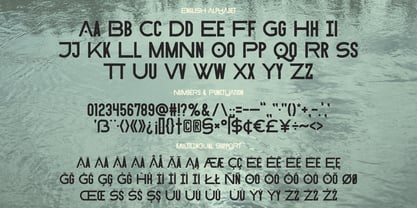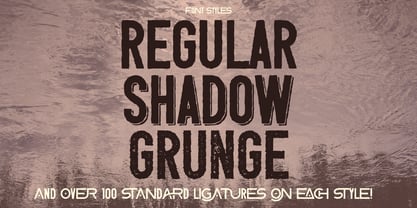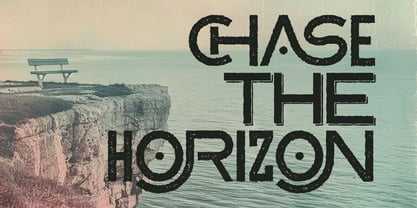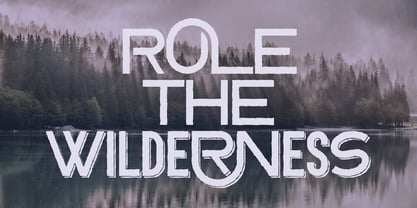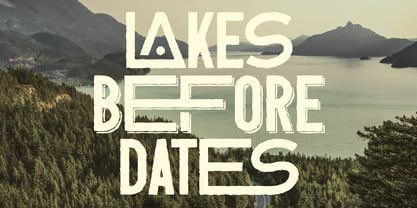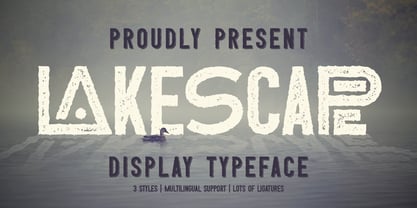
Lakescape
by Vozzy
The Lakescape Font Family was designed by Oleg Voznyy and published by Vozzy. Lakescape contains 3 styles and family package options. More about this family
Introducing "Lakescape," a distinctive font designed to elevate your headlines and accent inscriptions while capturing attention effortlessly. This versatile typeface includes a rich array of additional characters, punctuation marks, and multilingual options, ensuring it meets diverse design needs. With a generous selection of standard ligatures, Lakescape enhances readability and aesthetic appeal—just ensure your software supports these OpenType features. Perfect for branding, web design, and editorial projects, this font will beautifully complement your creative endeavors!
Designers: Oleg Voznyy
Foundry: Vozzy